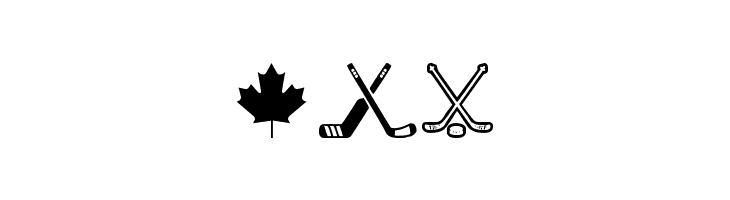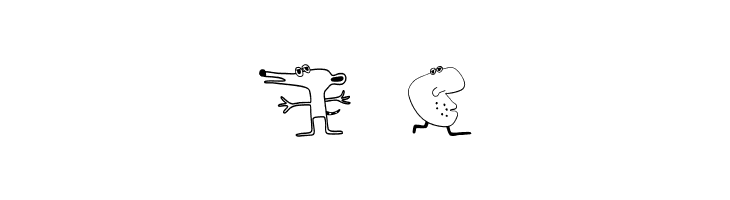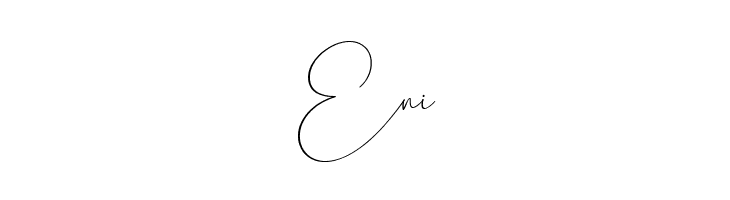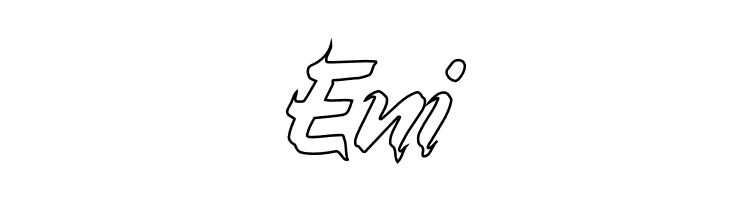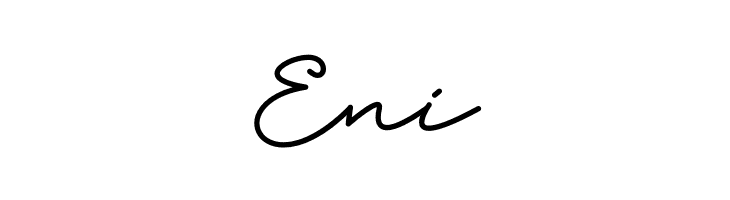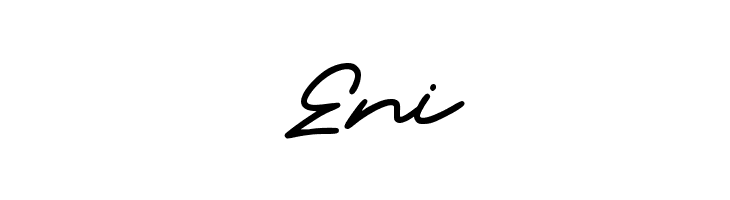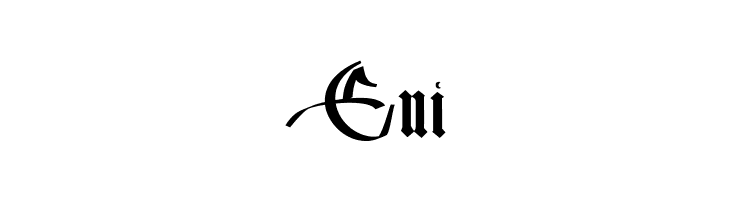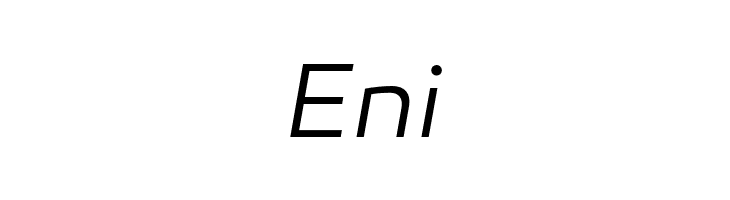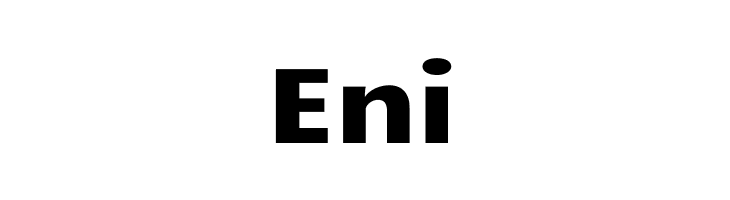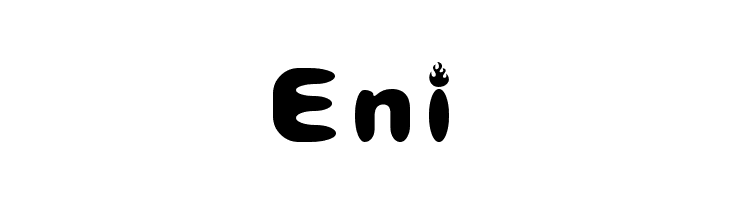
Bold, block-style font with a three-dimensional effect and thick outlines.
A bold, geometric font with a modern and robust style.
A bold, geometric font with a collegiate, varsity style.
A bold, distressed font with a vintage, rugged appearance.
A bold, edgy font with sharp, angular lines and a dynamic slant.
An elegant, high-contrast cursive script font with flowing, ornate characters.
A hand-drawn, rough font with a dynamic and energetic feel, reminiscent of graffiti.
A modern, geometric font with clean lines and high contrast.
A Canada-themed icon font with bold, simple pictograms.
A bold, geometric font with a double-line structure and futuristic appeal.
A bold, textured font with a hand-drawn, artistic style.
A playful and flowing script font with elegant curves and a modern artistic style.
Bold Western-style display font with ornamental slab serifs.
A dynamic brush-style font with bold, sweeping strokes and a handcrafted feel.
A bold, distressed font with a textured, vintage appearance.
Outlined geometric sans-serif with tall, narrow forms and rounded corners.
A modern, light sans-serif font with a clean and minimalist design.
A sleek, modern, light italic font with elegant slanted characters.
A whimsical, handwritten font with thin, elongated characters and a playful elegance.
A whimsical font with each letter depicted as a unique monster character.
A classic blackletter font with ornate, angular strokes and a bold, structured appearance.
A bold, graffiti-inspired font with angular, sharp edges and a decorative style.
A bold, playful font with a hand-drawn, uniform style.
A bold, modern font with strong lines and clear characters.
A bold, expressive handwritten font with fluid strokes and a dynamic style.
A bold, playful script font with interconnected, flowing strokes.
A flowing, cursive script font with elegant, interconnected characters.
A cursive, handwritten-style font with elegant, flowing characters.
A bold, playful font with rounded, bubbly characters ideal for fun and whimsical designs.
An elegant script font with flowing, cursive characters and decorative swashes.
A playful, bold, and rounded font with smooth curves and a whimsical touch.
A fluid and elegant script font with a calligraphic style.
A slanted, cursive font with medium contrast and elegant, flowing strokes.
A cursive, handwritten font with a casual and flowing style.
A playful and casual handwritten font with smooth curves and bold strokes.